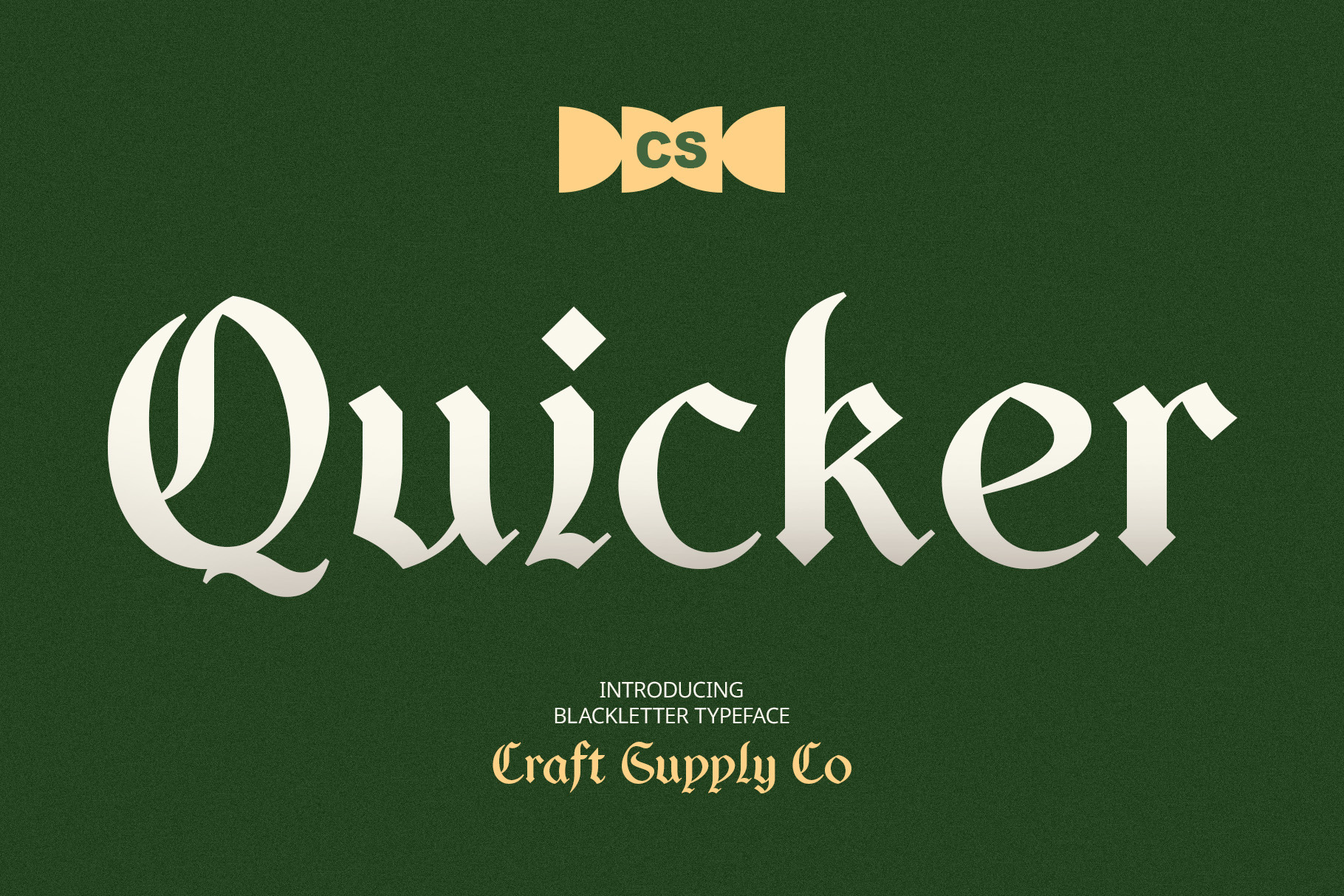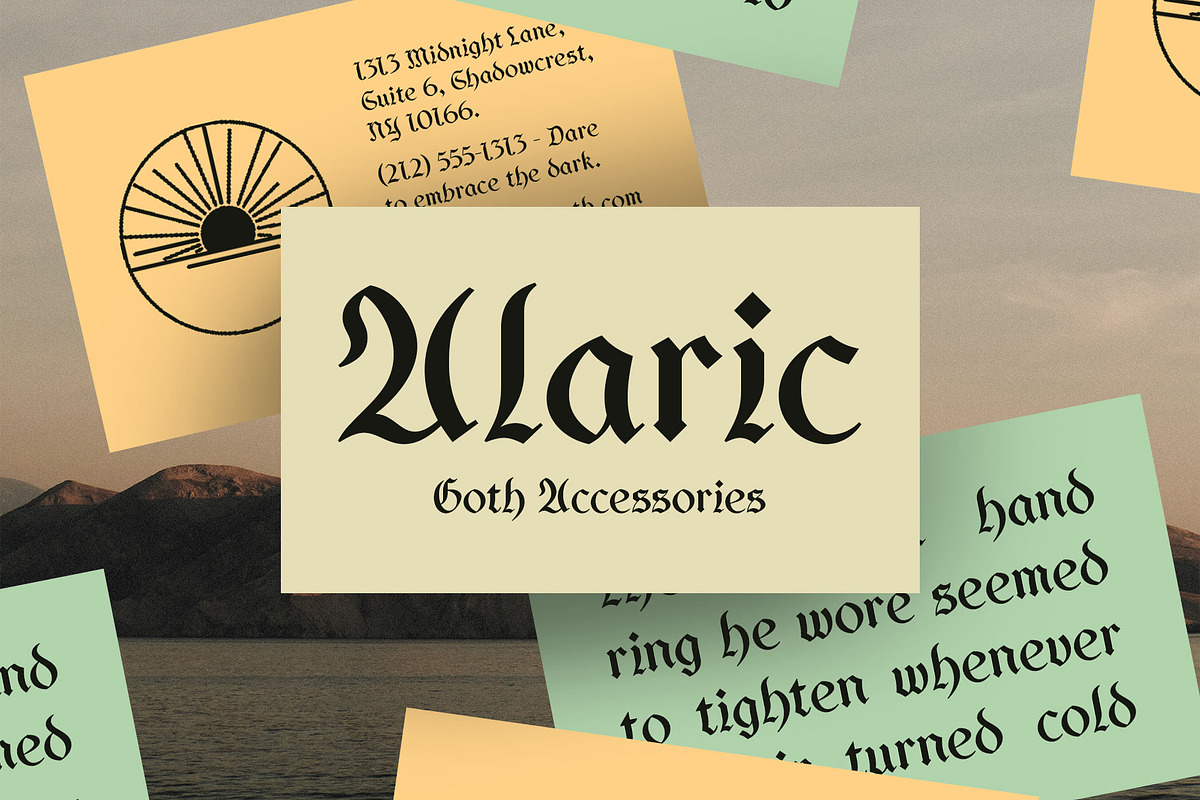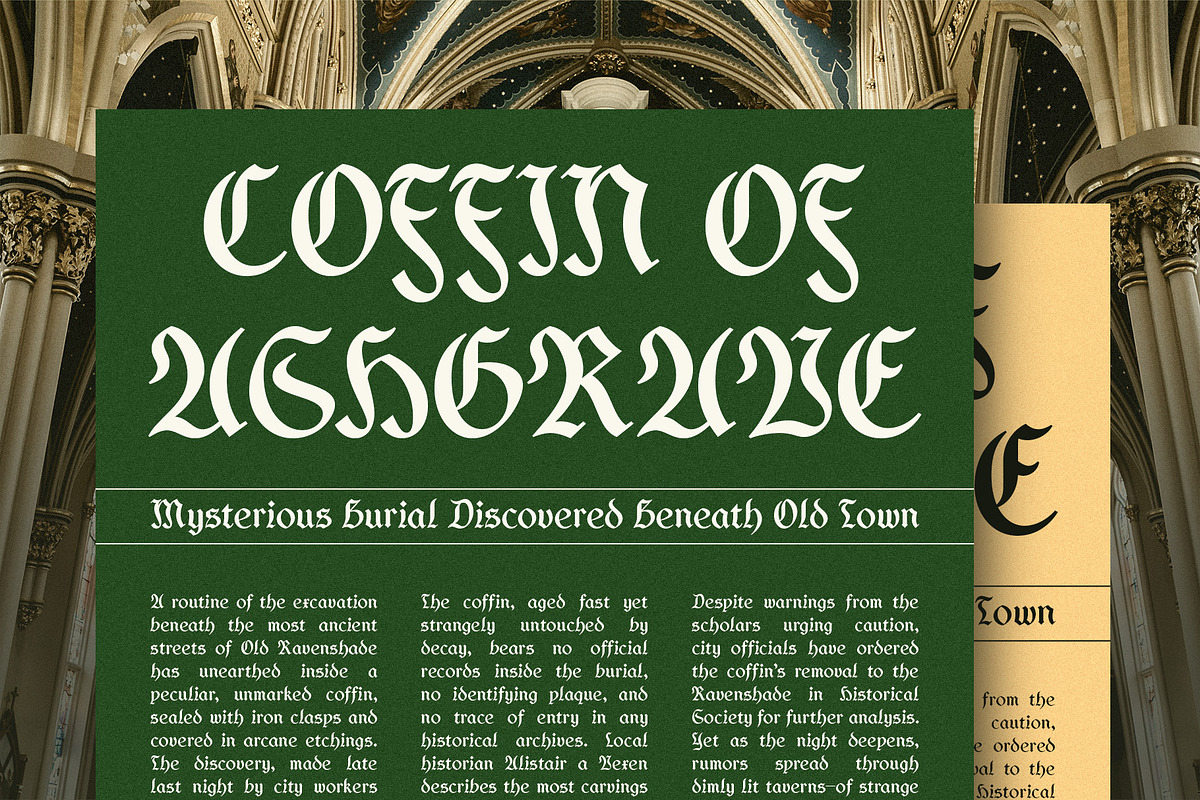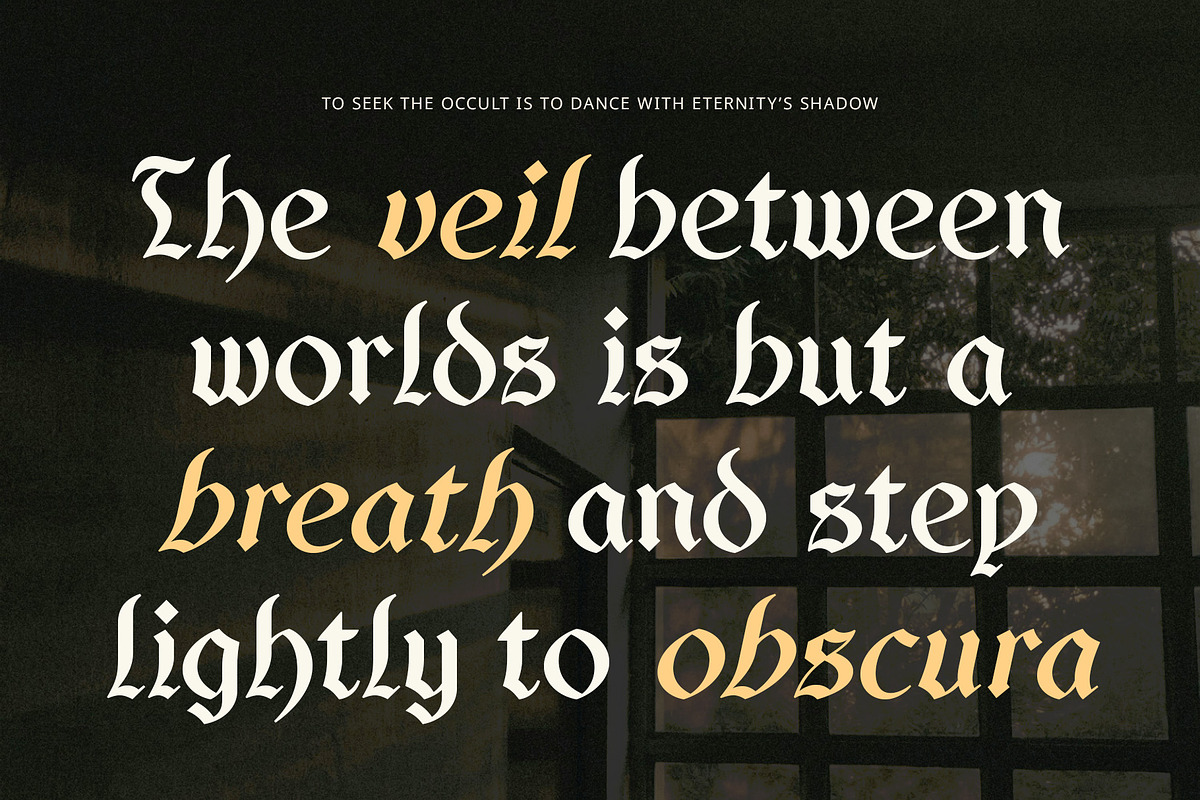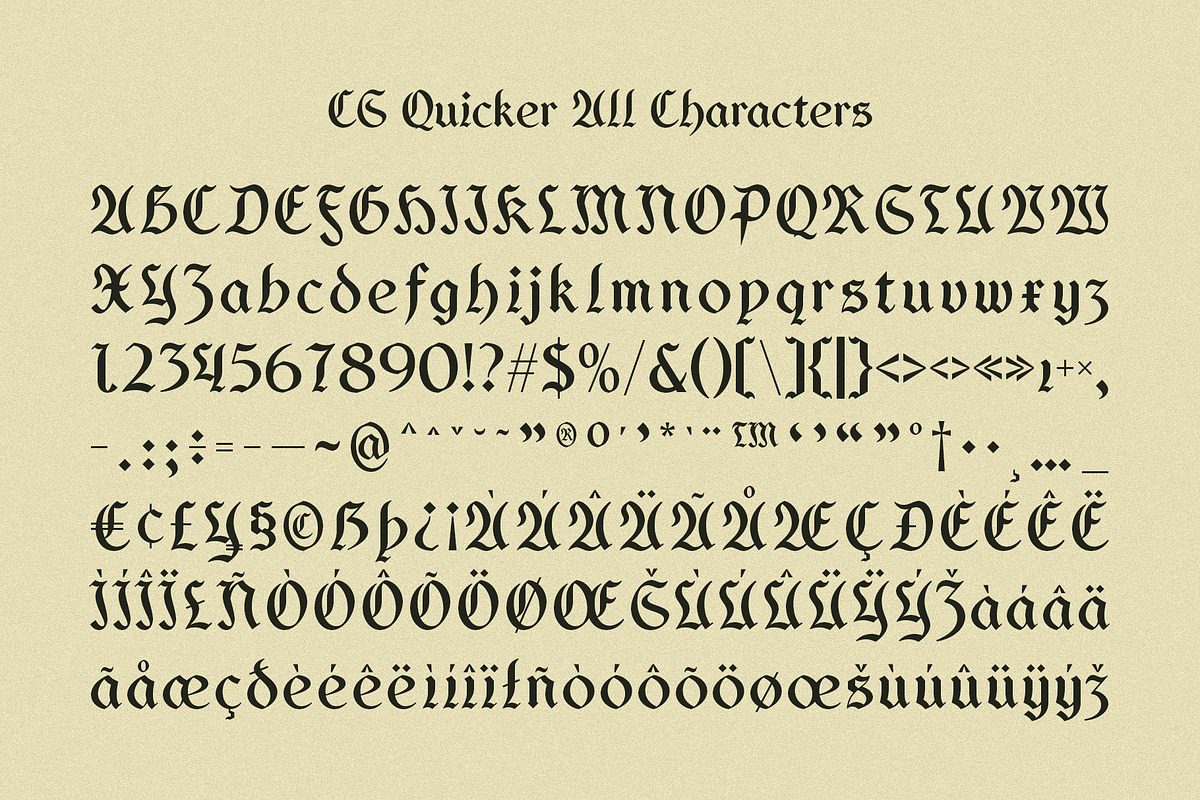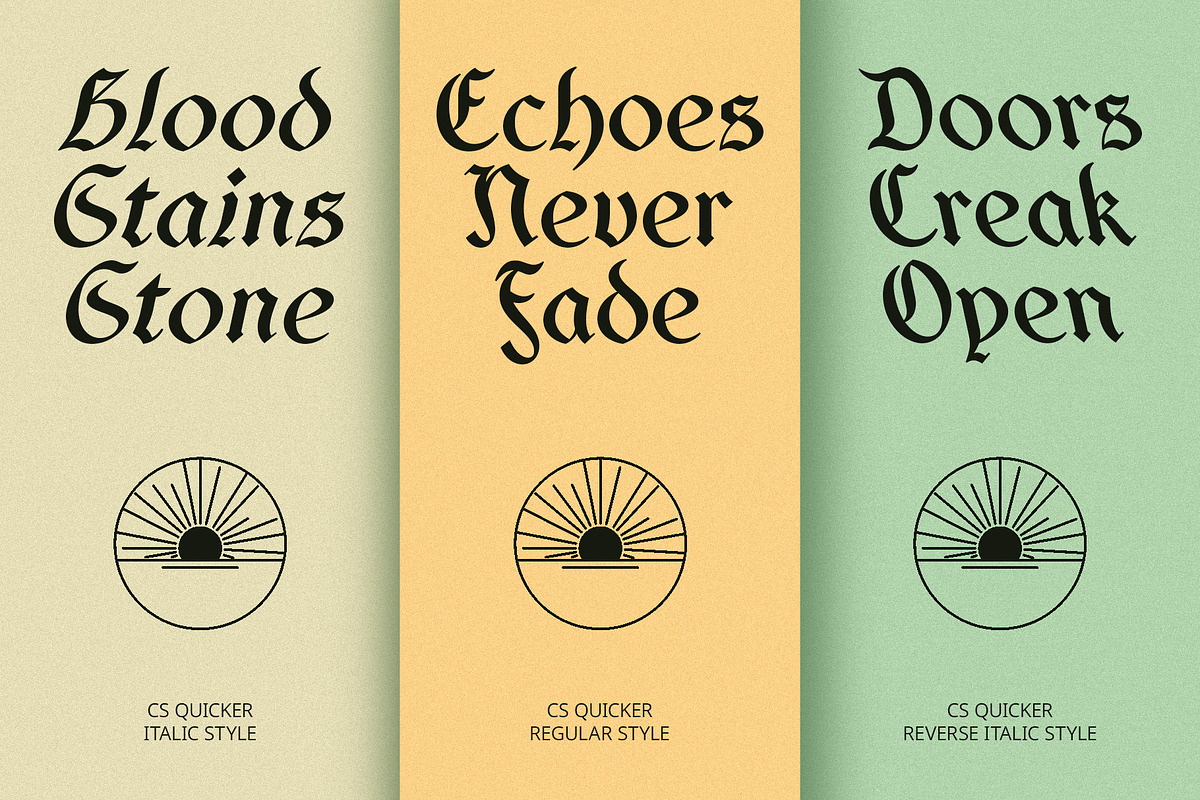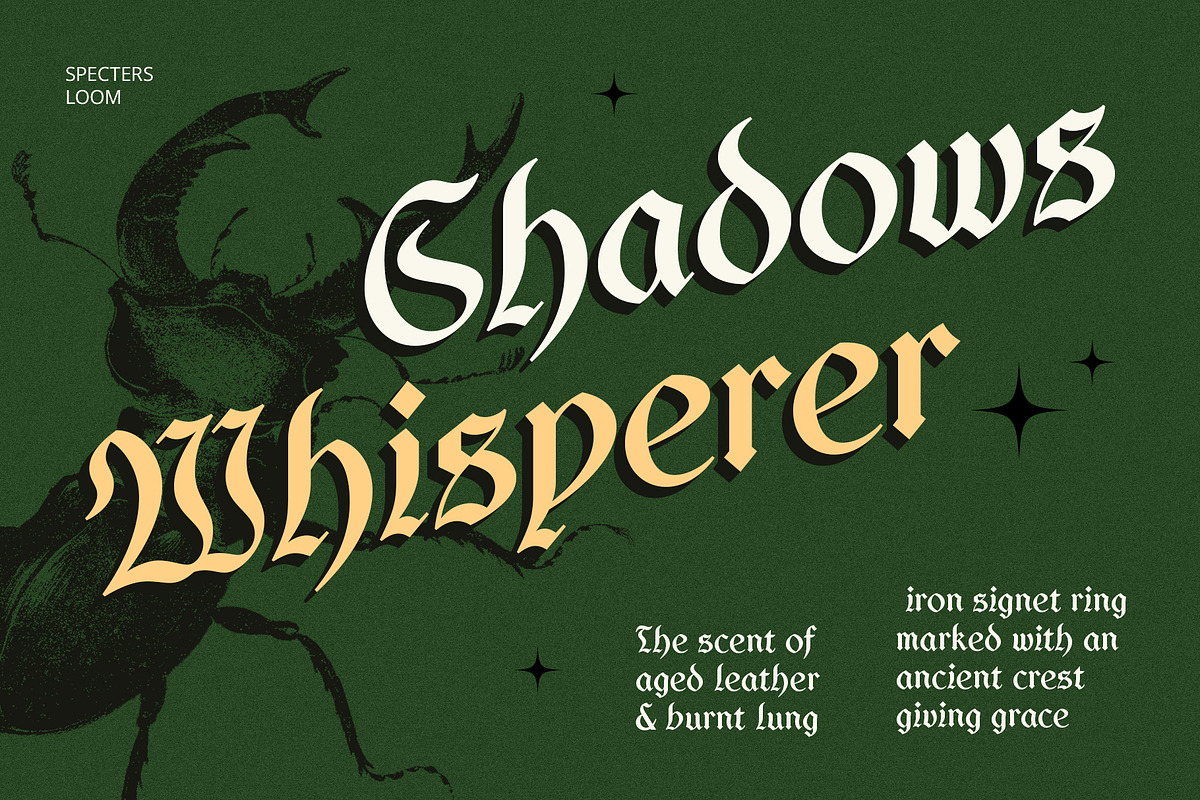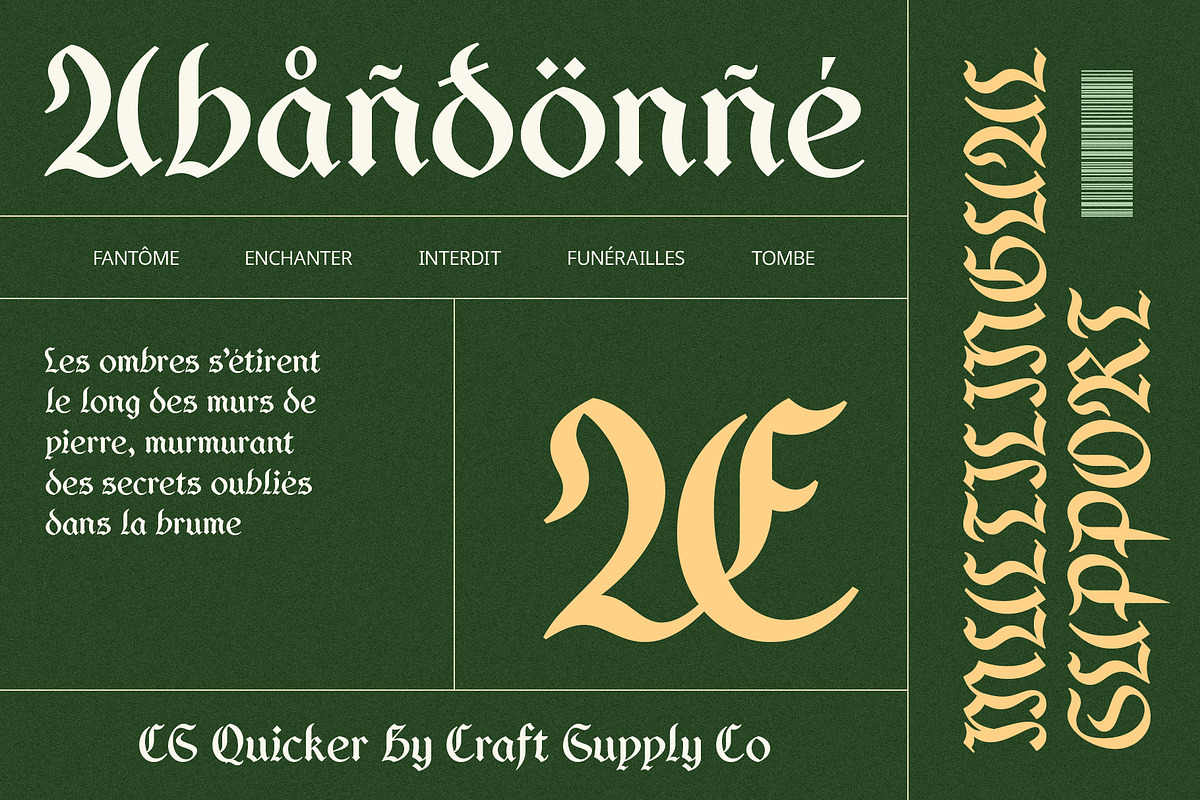
CS Quicker – Blackletter Font
CS Quicker – A Bold and Striking Blackletter Font
A Modern Take on Traditional Blackletter CS Quicker is a bold blackletter font that fuses historical gothic influences with a modern touch. With its sharp angles, intricate details, and strong presence, it embodies a sense of power, mystery, and rebellion. Inspired by medieval calligraphy and old English typography, this font is perfect for branding, posters, album covers, merchandise, and statement designs that require a bold and authoritative aesthetic.
Distinctive Letterforms with High Impact Featuring bold strokes, dramatic curves, and angular cuts, CS Quicker is a display font that exudes strength and intensity. The letterforms are intricate yet legible, ensuring a striking and commanding appearance while maintaining readability. Ideal for titles, headlines, and logos that need a bold and unforgettable impression.
Perfect for Branding an Statement Designs CS Quicker’s striking aesthetic makes it an excellent choice for projects that require a bold and distinctive look. Whether used for logos, tattoos, apparel, or editorial designs, this font enhances the visual impact of any creative work.
Versatile and Timeless Gothic Appeal With a fusion of tradition and modernity, CS Quicker is ideal for vintage-inspired themes, gothic aesthetics, and contemporary bold statements. Its versatile and dramatic presence ensures that it remains timeless and adaptable across various design styles and mediums.
- CS Quicker Regular
- CS Quicker Italic
- CS Quicker Reverse Italic